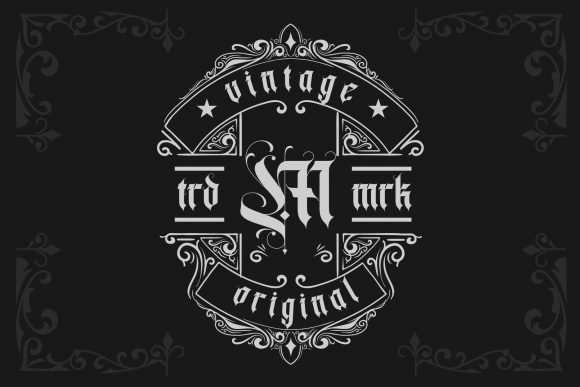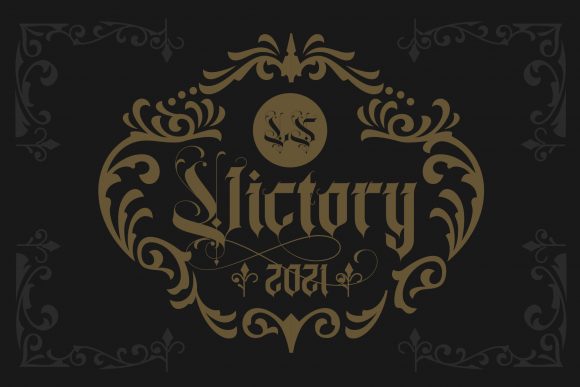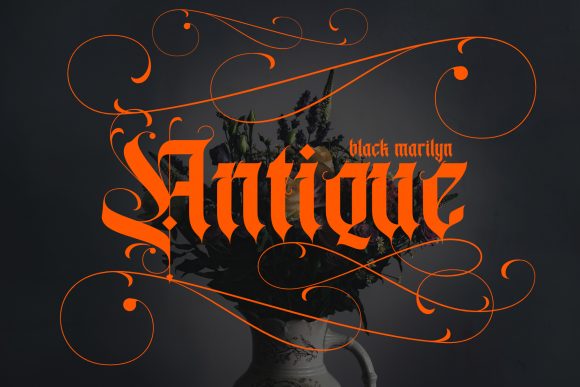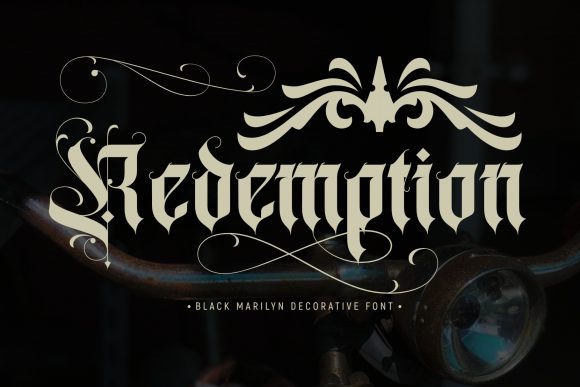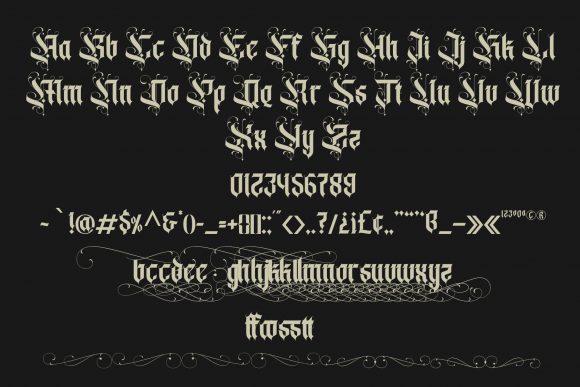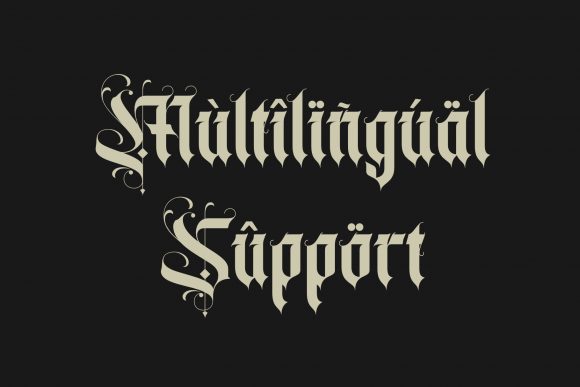
Unleash Your Creativity with Black Marilyn Font: A Bold and Authentic Blackletter Font
Are you a designer, crafter, or DIY enthusiast looking for a font that can elevate your creative projects to the next level? Look no further than the Black Marilyn Font, a cool, bold, and authentic blackletter font that’s sure to become a true favorite in your collection.
What is Black Marilyn Font?
Black Marilyn Font is a masterfully designed blackletter font that’s perfect for making a statement. Its bold and authentic design makes it ideal for use in a variety of creative projects, from crafting and DIY tutorials to graphic design and digital art.
Key Features of Black Marilyn Font
- Bold and Authentic Design: Black Marilyn Font features a bold and authentic blackletter design that’s sure to grab attention.
- High Versatility: This font is perfect for use in a variety of creative projects, from crafting and DIY tutorials to graphic design and digital art.
- Easily Readable: Despite its bold design, Black Marilyn Font is easily readable, making it perfect for use in titles, headings, and other design elements.
- Unique and Creative: With its unique and creative design, Black Marilyn Font is sure to add a touch of personality to your creative projects.
Why Choose Black Marilyn Font?
So why choose Black Marilyn Font for your creative projects? Here are just a few reasons why this font stands out from the crowd:
- Instant Recognition: The bold and authentic design of Black Marilyn Font makes it instantly recognizable, adding a touch of professionalism to your creative projects.
- High-Quality Design: Black Marilyn Font features a high-quality design that’s perfect for use in a variety of creative projects.
How to Use Black Marilyn Font
Black Marilyn Font is perfect for use in a variety of creative projects, including:
- Crafting and DIY Tutorials: Use Black Marilyn Font to add a touch of personality to your crafting and DIY tutorials.
- Graphic Design: This font is perfect for use in graphic design projects, such as brochures, posters, and business cards.
- Digital Art: Black Marilyn Font can be used to add a touch of creativity to your digital art projects.
- Signage and Displays: Use this font to create eye-catching signage and displays.
Tips and Tricks for Using Black Marilyn Font
Here are a few tips and tricks for using Black Marilyn Font in your creative projects:
- Use it as a Title Font: Black Marilyn Font is perfect for use as a title font, adding a touch of personality to your creative projects.
- Combine it with Other Fonts: Experiment with combining Black Marilyn Font with other fonts to create a unique and creative design.
- Use it in Large Sizes: This font is perfect for use in large sizes, making it ideal for use in signage and displays.
In conclusion, Black Marilyn Font is a cool, bold, and authentic blackletter font that’s perfect for designers, crafters, and DIY enthusiasts. With its high versatility, easily readable design, and unique and creative style, this font is sure to become a true favorite in your collection. So why wait? Download Black Marilyn Font today and start unleashing your creativity!